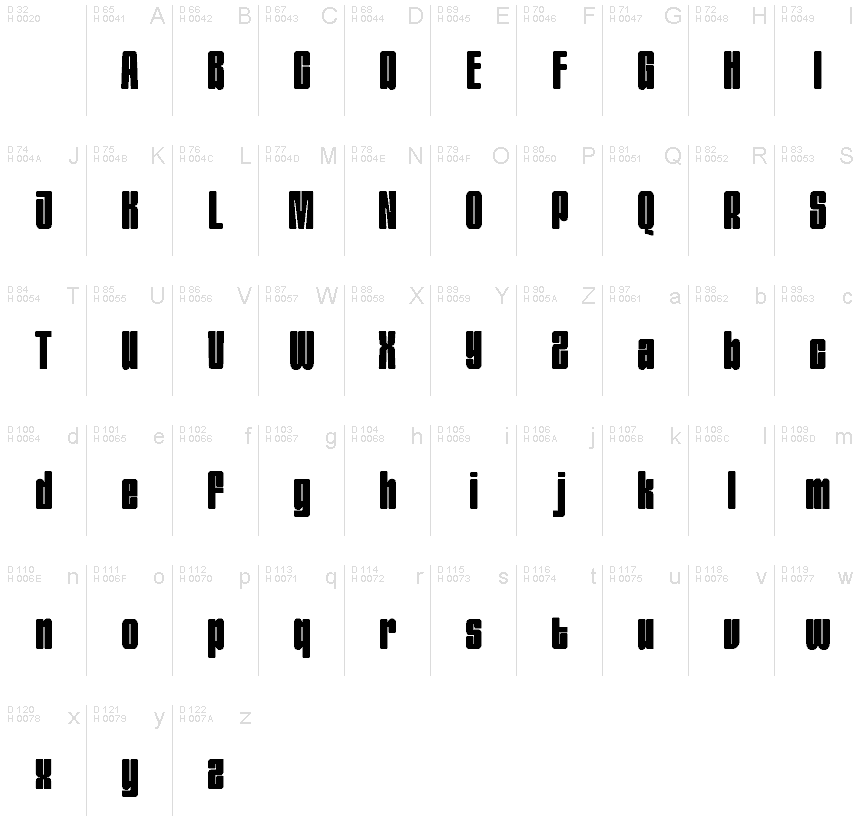
CS Central Regular Demo
CS Central font by Craft Supply Co. is a mesmerizing retro display font with a condensed width. It merges industrial geometric shapes to create assertive angular characters with an unusual modernist vibe. CS Central captures more attention with its robust presence whether used on small or large sizes.
The font’s exciting allcaps shape makes it perfect for developing eye-catching logotypes, advertisements, posters, book covers, greeting cards, website presentations and banners, business cards and stationery, packaging designs including shopping bags and boxes and more!